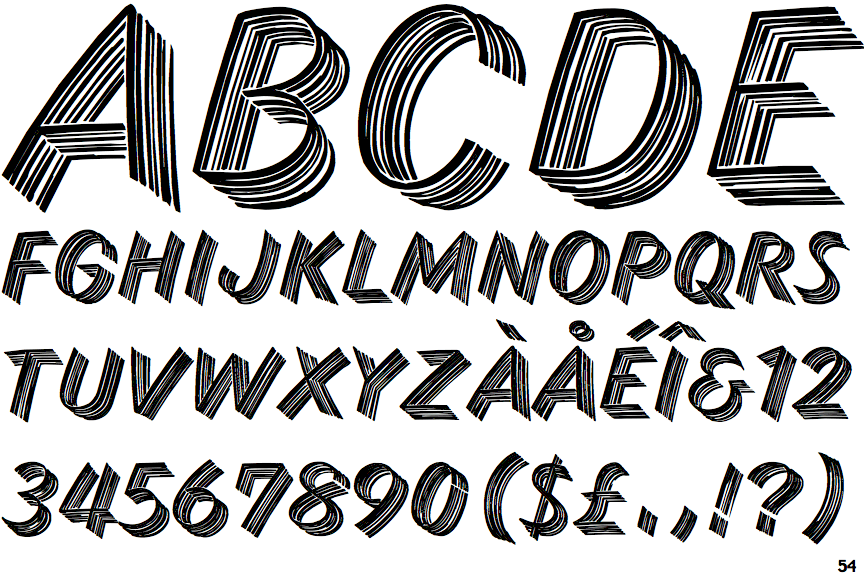
Skid Row Font . Archive of freely downloadable fonts. Using a catalog of over 990k+ fonts (commercial or free) and our font finder ai, we. An independent archive of typography. Browse by alphabetical listing, by style, by author or by popularity. This informal new brush script typeface was designed by talented japanese calligrapher akira. Or combine terms with advanced search. Skid row is the work of japanese designer akira kobayashi and named after a song from his favorite film, little shop of horrors. Archive of freely downloadable fonts. Below is a collection of band fonts, which are identical or similar to the fonts used in the logos of popular bands. Skid row™ is available in opentype for. Browse by alphabetical listing, by style, by author or by popularity. Our website helps you find any font from any image.
Skid row is the work of japanese designer akira kobayashi and named after a song from his favorite film, little shop of horrors. An independent archive of typography. Or combine terms with advanced search. Using a catalog of over 990k+ fonts (commercial or free) and our font finder ai, we. Browse by alphabetical listing, by style, by author or by popularity. Our website helps you find any font from any image. Browse by alphabetical listing, by style, by author or by popularity. Skid row™ is available in opentype for. This informal new brush script typeface was designed by talented japanese calligrapher akira. Archive of freely downloadable fonts.
Skid Row Font Our website helps you find any font from any image. Browse by alphabetical listing, by style, by author or by popularity. Skid row is the work of japanese designer akira kobayashi and named after a song from his favorite film, little shop of horrors. Our website helps you find any font from any image. Skid row™ is available in opentype for. Archive of freely downloadable fonts. This informal new brush script typeface was designed by talented japanese calligrapher akira. An independent archive of typography. Using a catalog of over 990k+ fonts (commercial or free) and our font finder ai, we. Archive of freely downloadable fonts. Or combine terms with advanced search. Below is a collection of band fonts, which are identical or similar to the fonts used in the logos of popular bands. Browse by alphabetical listing, by style, by author or by popularity.
Identifont Skid Row Font Skid row is the work of japanese designer akira kobayashi and named after a song from his favorite film, little shop of horrors. Archive of freely downloadable fonts. Using a catalog of over 990k+ fonts (commercial or free) and our font finder ai, we. Browse by alphabetical listing, by style, by author or by popularity. An independent archive of typography.. Skid Row Font.
Skid Row Font FontPath Skid Row Font Using a catalog of over 990k+ fonts (commercial or free) and our font finder ai, we. Our website helps you find any font from any image. Skid row™ is available in opentype for. An independent archive of typography. Archive of freely downloadable fonts. Browse by alphabetical listing, by style, by author or by popularity. Browse by alphabetical listing, by style,. Skid Row Font.
Skid Row Font YouWorkForThem Skid Row Font An independent archive of typography. Archive of freely downloadable fonts. This informal new brush script typeface was designed by talented japanese calligrapher akira. Browse by alphabetical listing, by style, by author or by popularity. Or combine terms with advanced search. Using a catalog of over 990k+ fonts (commercial or free) and our font finder ai,. Skid Row Font.
Skid Row W90 1.00 Fonts Free Download Skid Row Font Our website helps you find any font from any image. Using a catalog of over 990k+ fonts (commercial or free) and our font finder ai, we. Skid row™ is available in opentype for. Browse by alphabetical listing, by style, by author or by popularity. Archive of freely downloadable fonts. Skid row is the work of japanese designer akira kobayashi and. Skid Row Font.
SKID Font Skid Row Font Skid row™ is available in opentype for. Browse by alphabetical listing, by style, by author or by popularity. An independent archive of typography. Below is a collection of band fonts, which are identical or similar to the fonts used in the logos of popular bands. Our website helps you find any font from any image. Using a catalog of over. Skid Row Font.